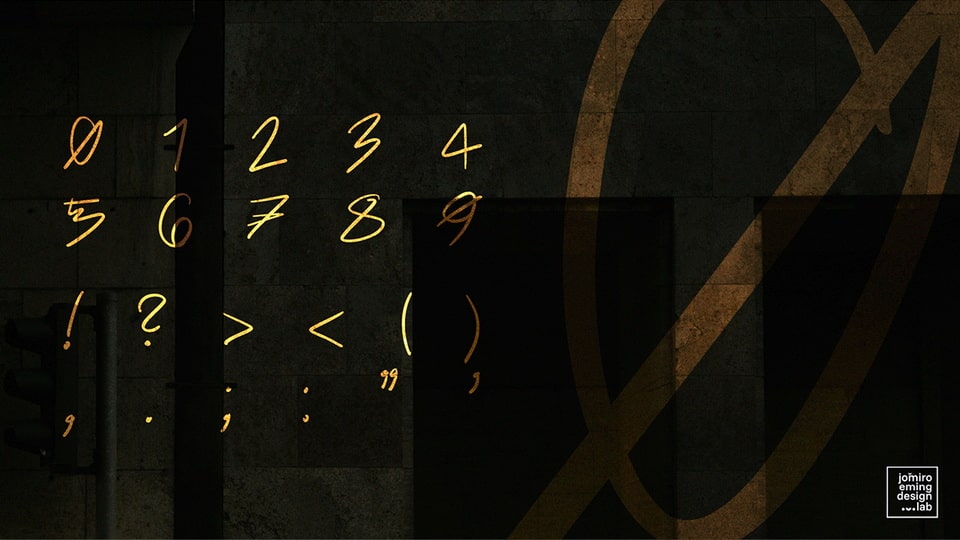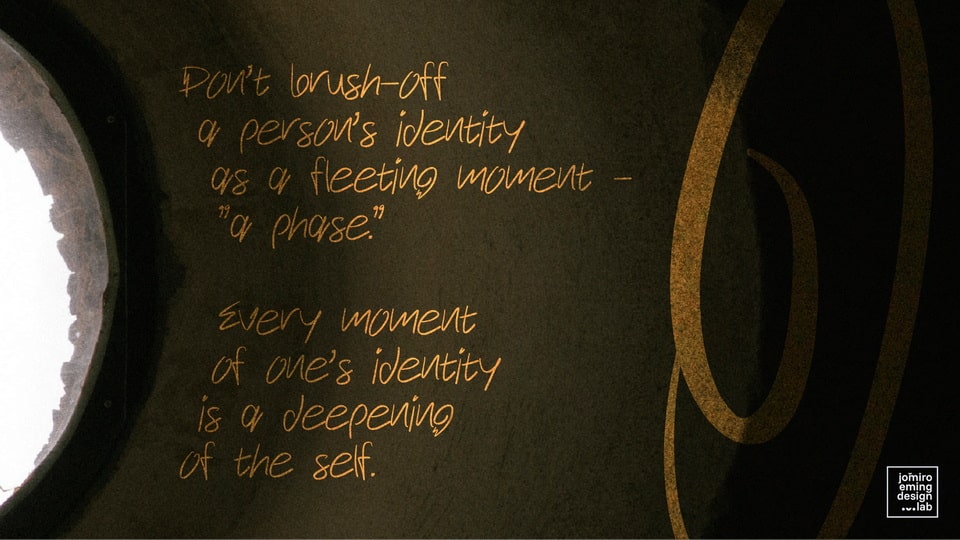
It is not just a phase is a natural, organic handwritten font that exudes an artistic touch with each stroke. Inspired by the flow and rhythm of handwriting, it features irregular curves, varied line weights, and subtle imperfections that bring a sense of authenticity and creativity. Every letter feels like a brushstroke, making the font perfect for designs that seek an expressive, handcrafted look. Ideal for art projects, invitations, and branding, this font brings warmth and character, blending spontaneity with elegance.
Great for logos, quotes, and creative packaging, It is not just a phase font adds a personal and artistic impression to any project.